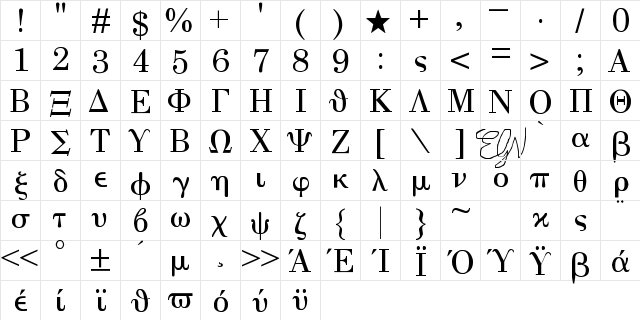
Markdings Greek Regular
Design Context for Markdings Greek Typeface
Markdings Greek takes a measured approach to typography — its balanced proportions and neutral character make it a reliable workhorse for both digital and print work.